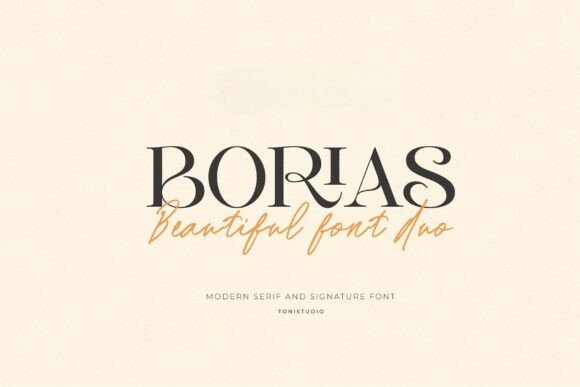
Unleash Your Creative Potential with the Perfect Font Duo
Have you ever been brainstorming a new design project, and the perfect font just seems to elude you? You know, that one elusive combination of style and sophistication that elevates your entire concept? For designers, finding the right font can make all the difference in creating a lasting impression.
Enter Borias Font Duo, a harmonious blend of a smooth signature script font and an elegant modern serif font. This luxurious and classy font duo is designed to give your creative projects a touch of sophistication and uniqueness. With its versatile design, Borias Font is suitable for branding, logos, invitation designs, social media, product packaging, and more.
Borias Font Key Features
- Unique Characteristics: The font features a distinctive, elegant script style with intricate connections between letters, making it ideal for luxury, high-end branding, and invitations.
- Kerning and Ligatures: The font includes advanced kerning and ligature pairs, ensuring smooth text rendering and a polished appearance in both body text and display settings.
Borias Font Review
As a designer, I’ve had the chance to work with many fonts, and I’d say the Borias Font is a unique addition to my collection. ✨ The font’s elegant and refined look is sure to elevate any project that uses it. Its high-quality design and attention to detail make it perfect for luxury branding, magazines, and other high-end publications.
One of the standout features of Borias Font is its excellent legibility, even at small sizes. The font’s clear and concise design makes it easy to read, even for those with less-than-perfect eyesight. ✨ The font’s flexibility also allows it to be used in a variety of contexts, from body text to headings and titles.
Limits and Drawbacks
While the Borias Font is an excellent addition to any design library, there are a few limitations to be aware of:
- ⚠️ Limited language support: The font only includes a limited set of languages, which may not be suitable for projects that require extensive language support.
- ⚠️ Limited font weights: The font only includes a limited set of font weights, which may not be suitable for projects that require a wide range of weights.
Overall, I’m very impressed with the Borias Font. While it has some limitations, its elegant design and excellent legibility make it a valuable addition to any design library. If you’re looking for a high-end font that can elevate your projects, I’d definitely recommend giving Borias a try.
Tips for Getting the Most Out of Borias Font
Here are a few tips for getting the most out of Borias Font:
- Pair Borias Font with other fonts to create a unique and visually appealing design.
- Use Borias Font to add a touch of elegance and sophistication to your designs.
Borias Font is commonly used in:
- Wedding invitations and station